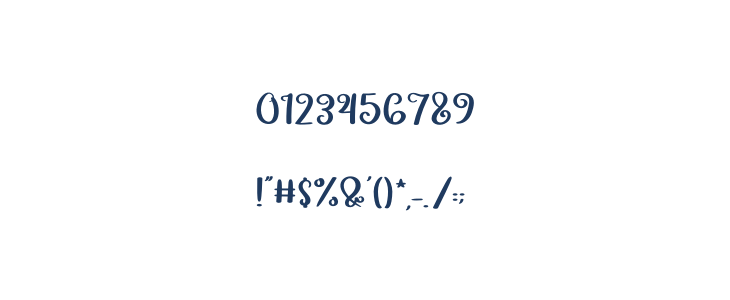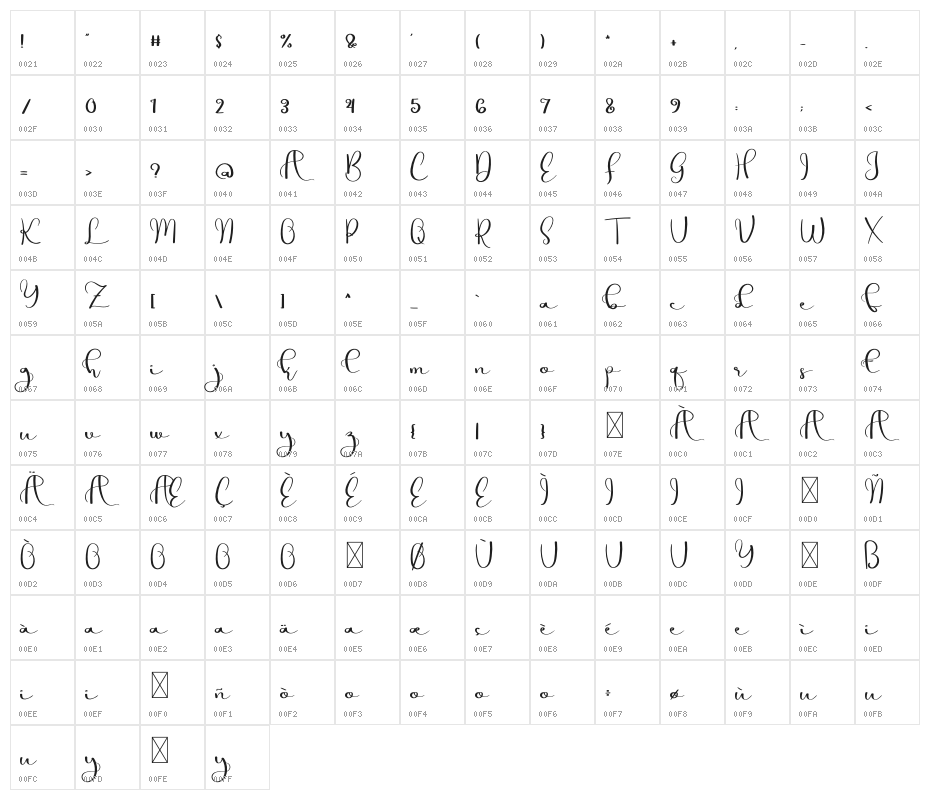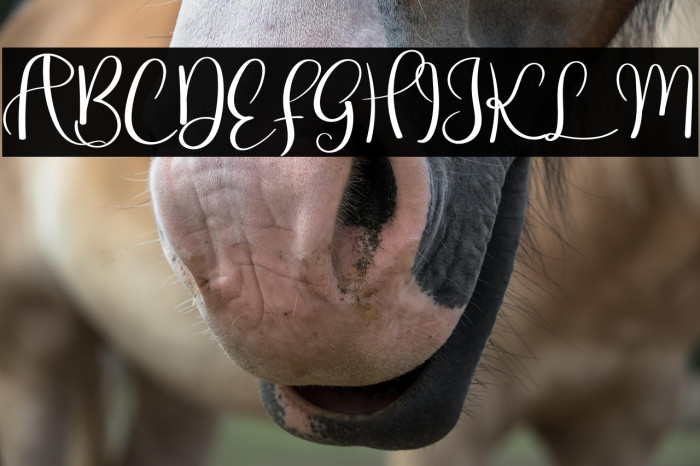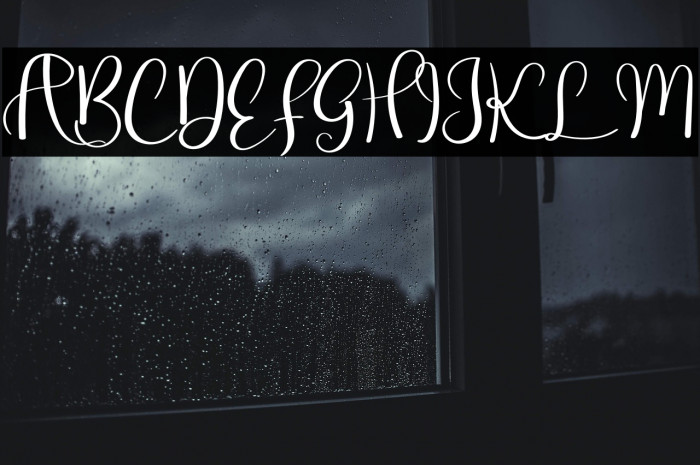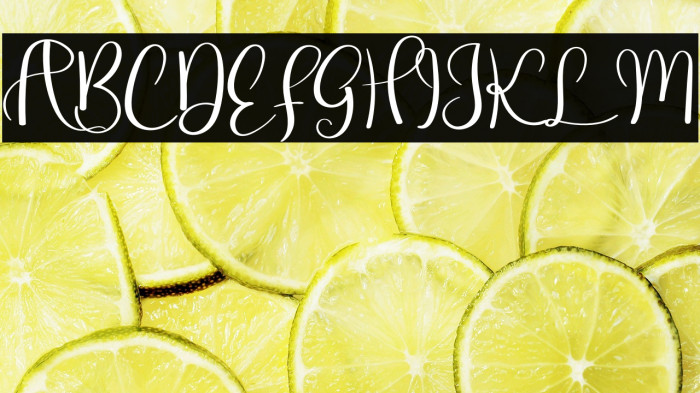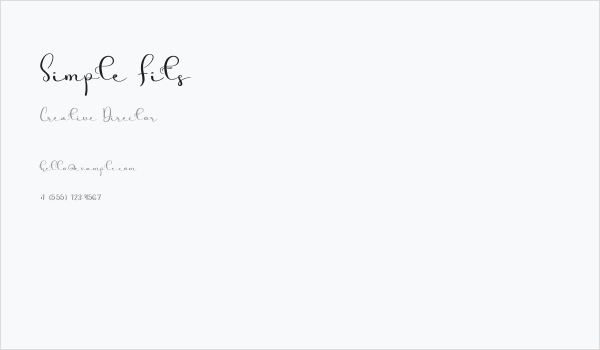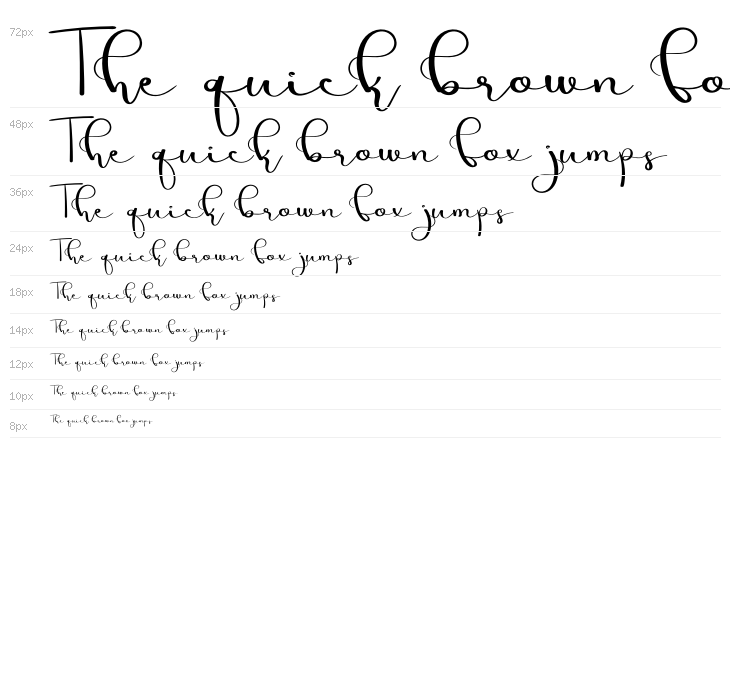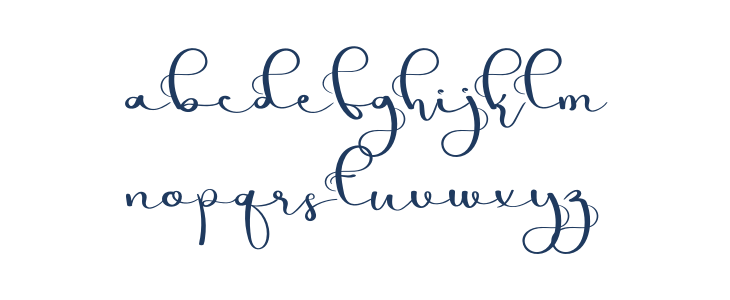
Simple Fits Font
Simple Fits Description
This font features an elegant and flowing script style, characterized by its graceful curves and loops. The uppercase letters are tall and slender, with intricate swirls that add a touch of sophistication. The lowercase letters maintain a consistent flow, with some characters extending below the baseline, enhancing the font's decorative appeal. The numerals are clear and slightly rounded, complementing the overall script style. Special characters are designed with the same attention to detail, ensuring a cohesive look across all glyphs. This font is perfect for projects that require a touch of elegance and charm.
| Use Case | Logos, Invitations, Decorative text |
| Proposed Projects | Ideal for wedding invitations, greeting cards, branding, and elegant logo designs. |